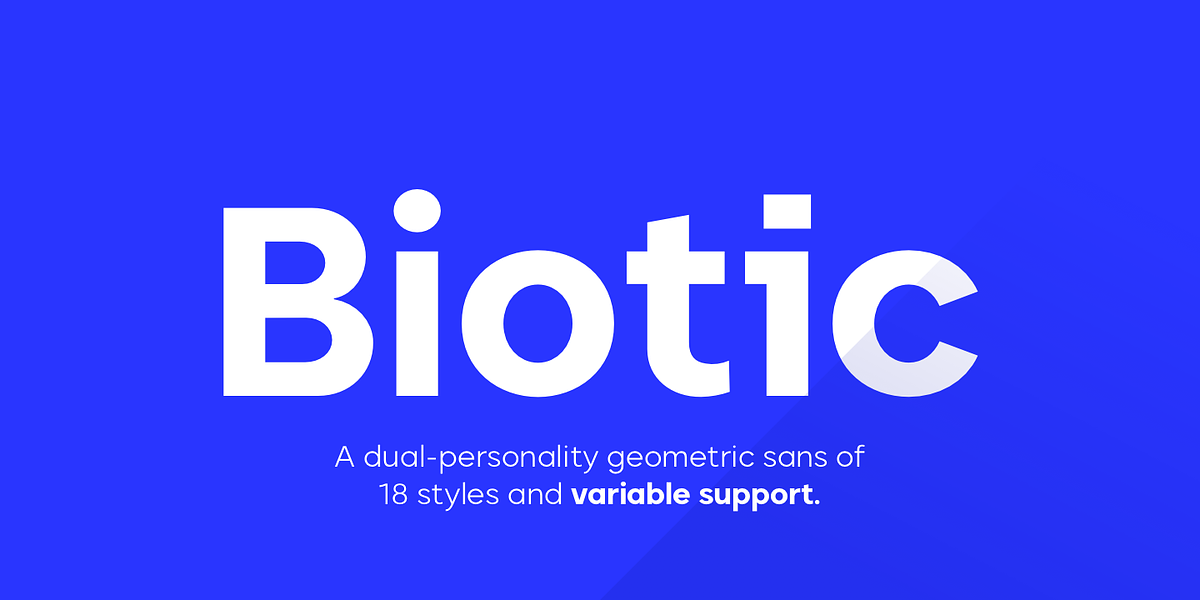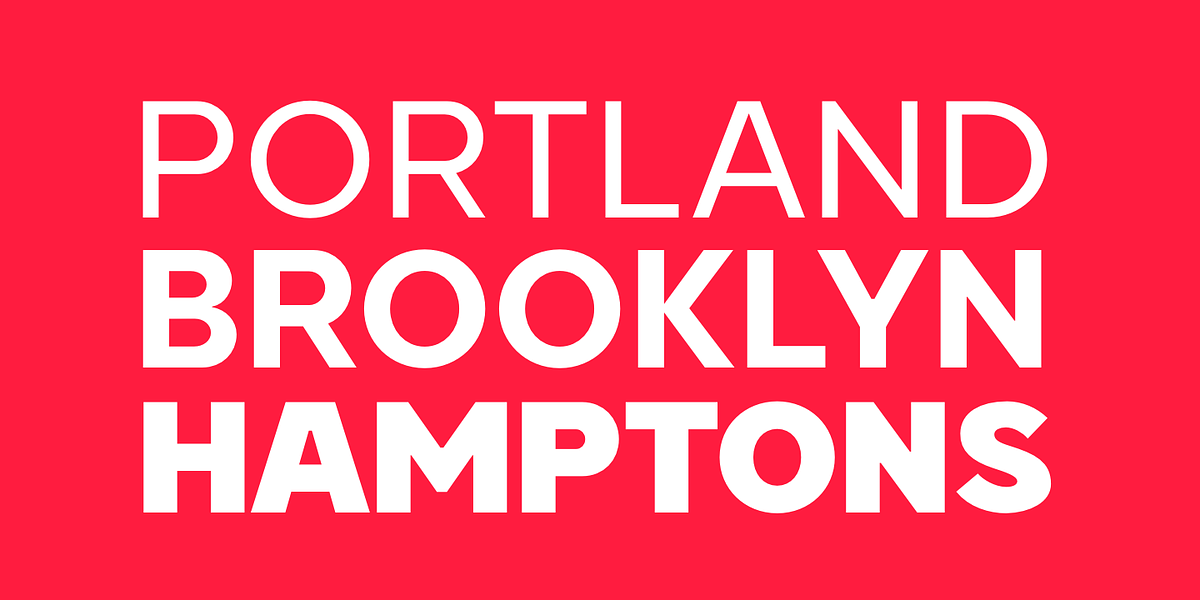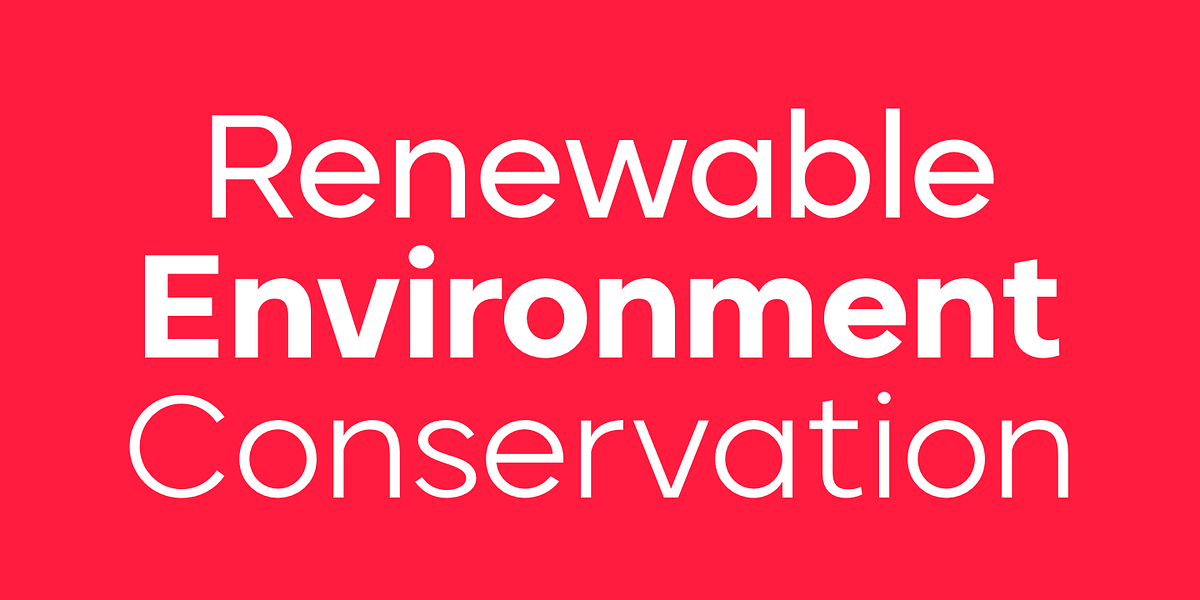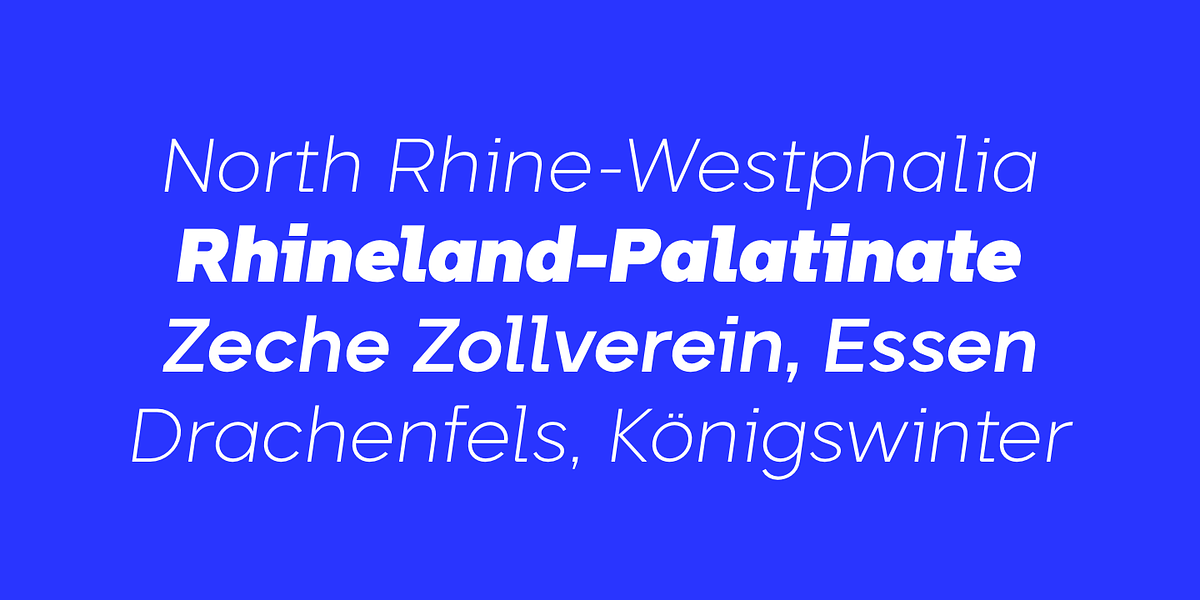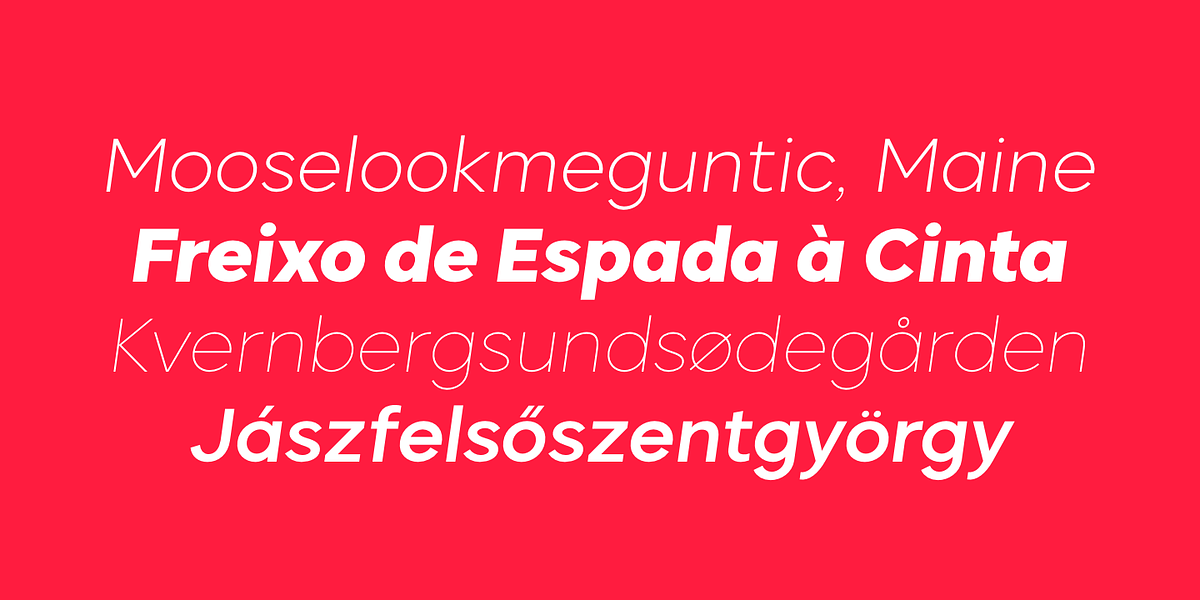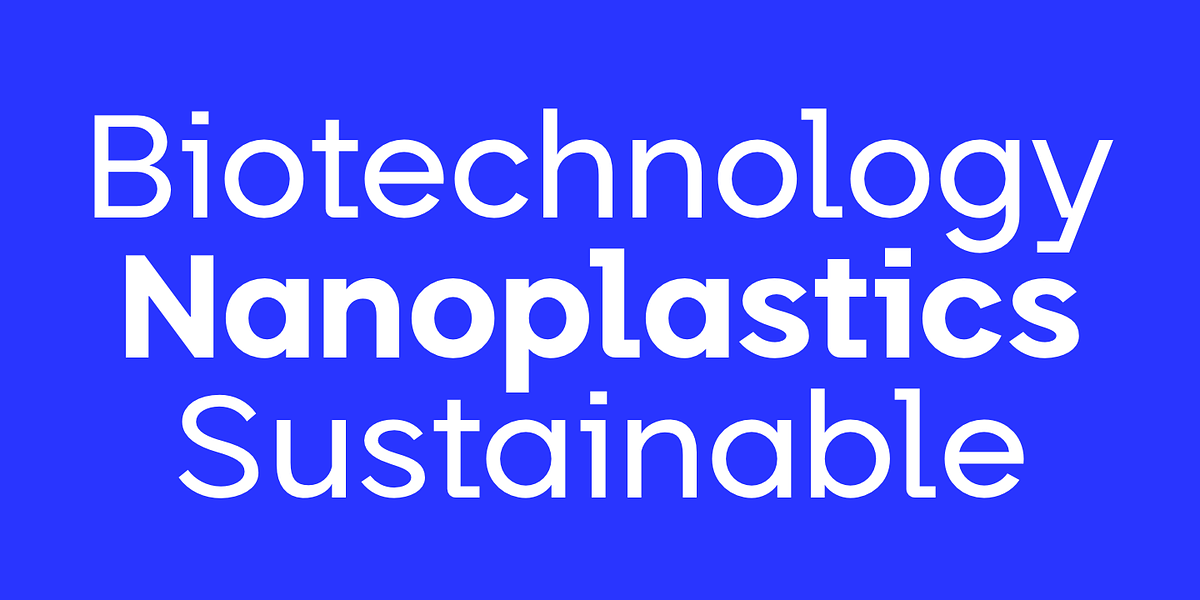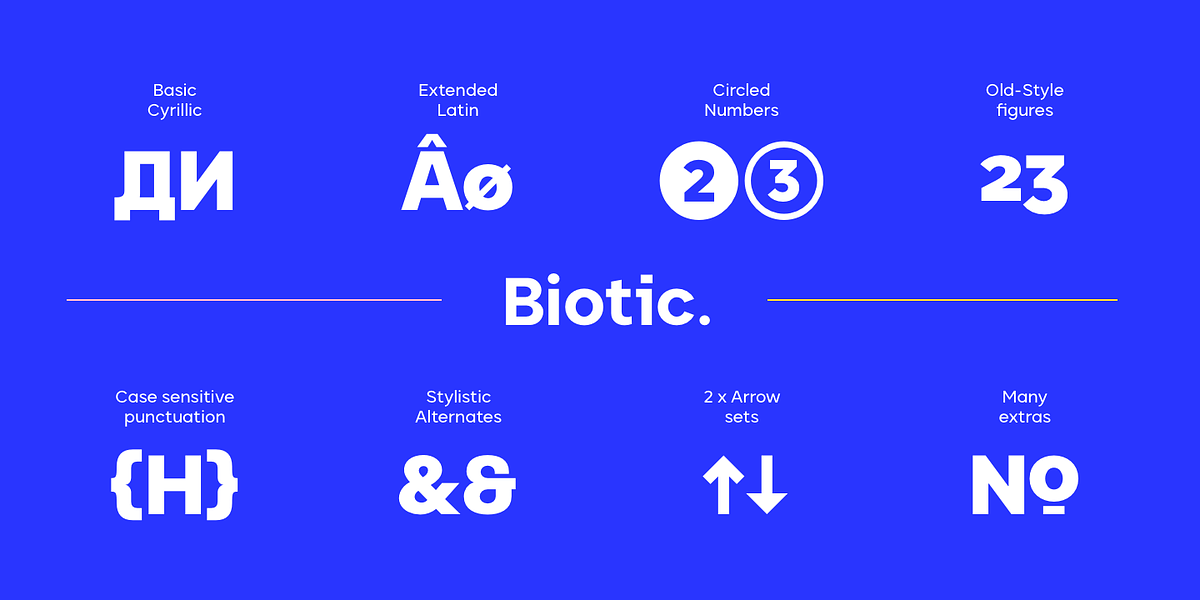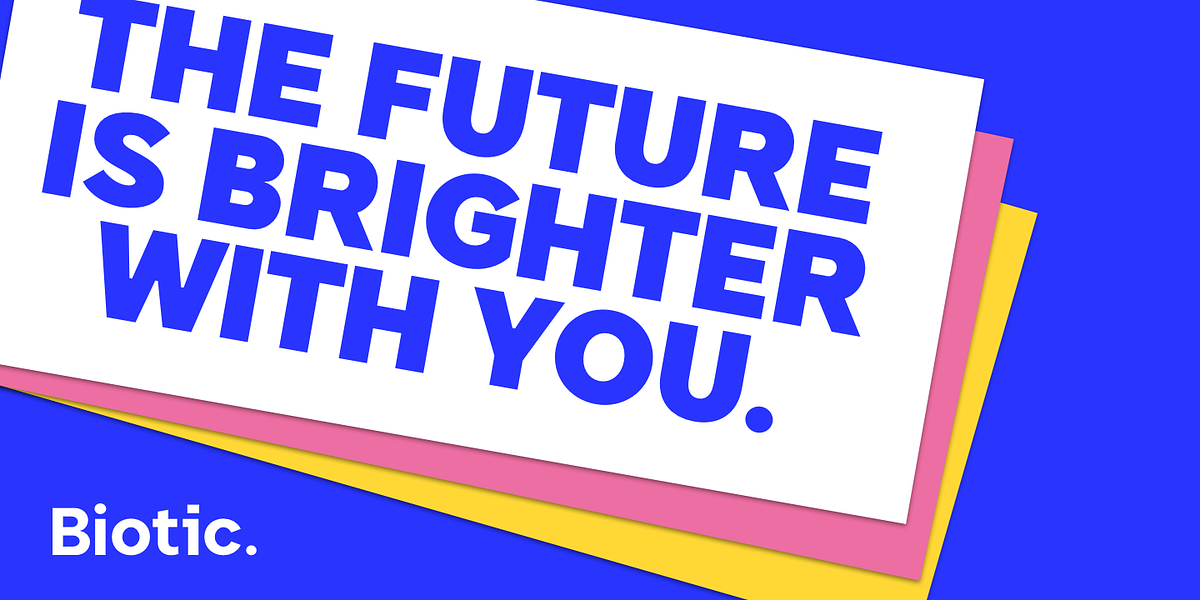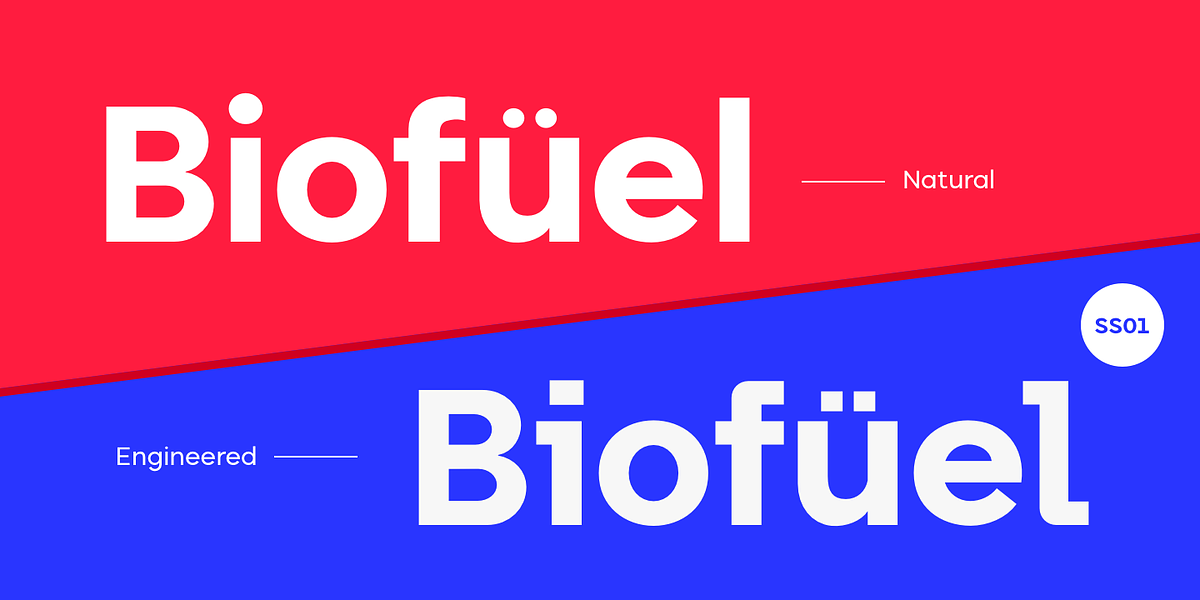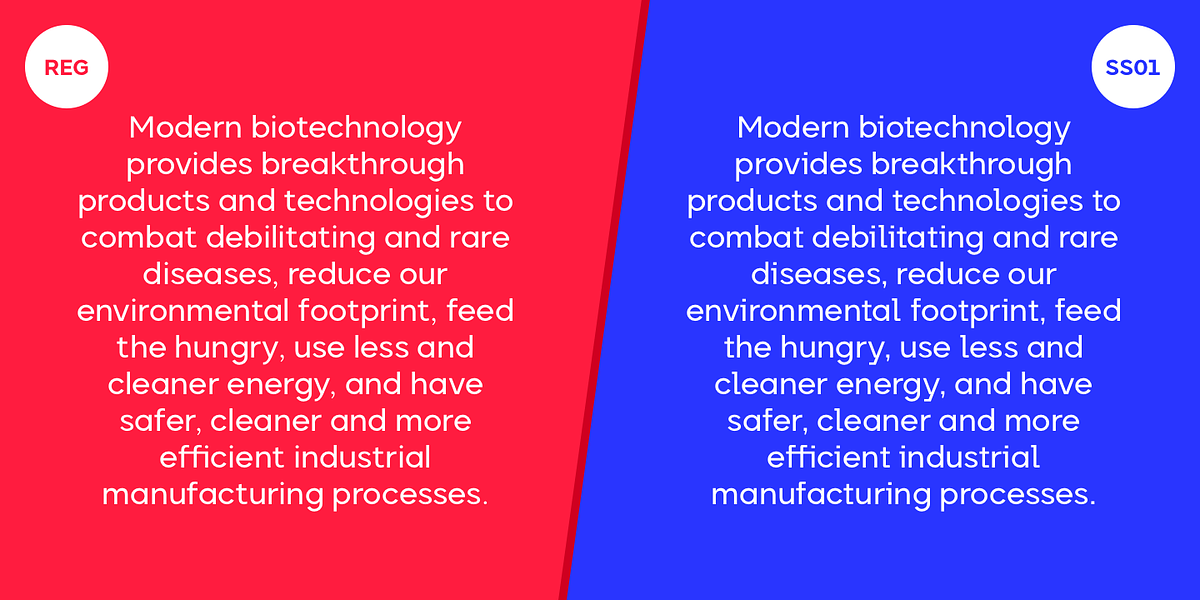
Biotic
Biotic is a geometric sans-serif typeface notable for its unique dual-personality feature. It offers two distinct styles: a conventional geometric design and an 'engineered' approach where specific characters like 'f', 'i', 'j', 'k', 'l', 't', and 'y' become squared, creating a sharper, more modern aesthetic. This versatility allows for dynamic typography by switching between the two styles with ease.